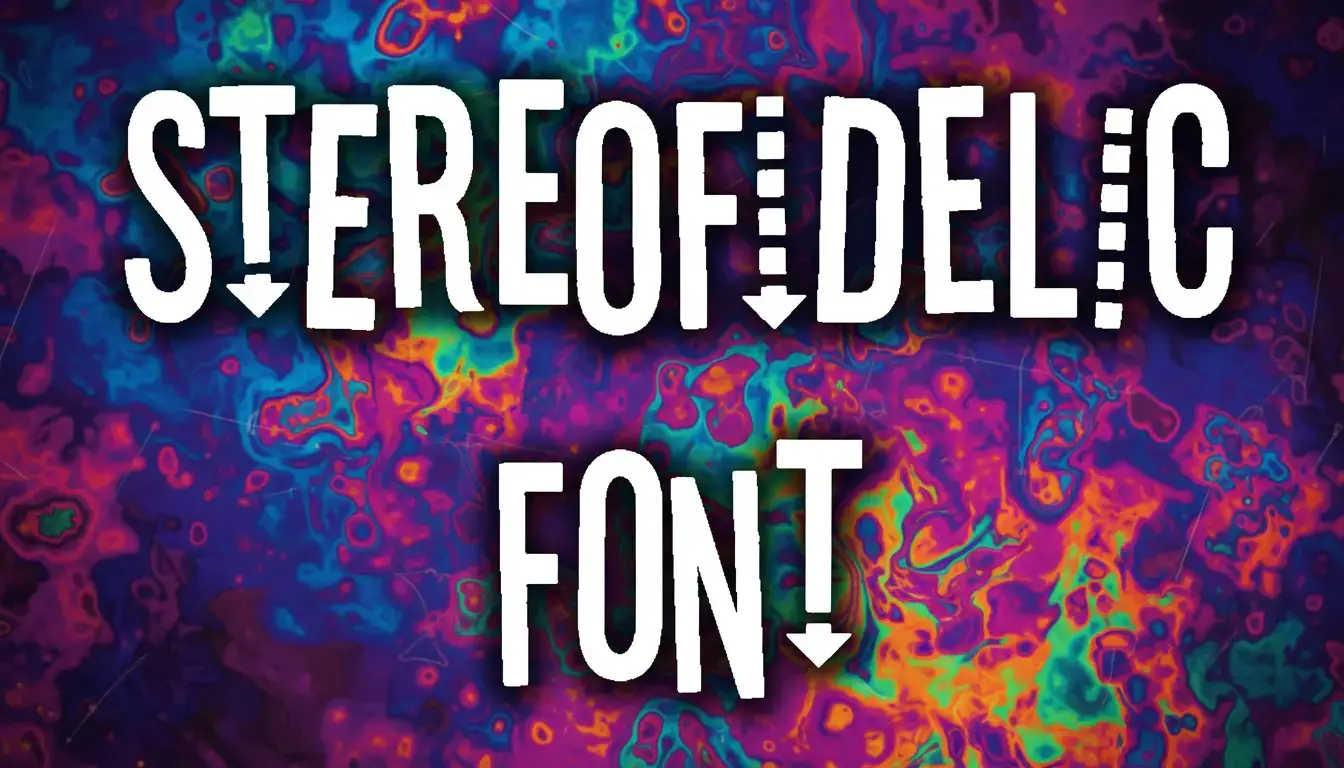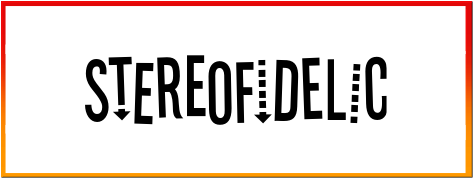
Stereofidelic Font
Stereofidelic is a fancy font made by Ray Larabie. Bold and full of character, it's built to stand out rather than blend in. You can download it for free and test it with your own words in the preview above.
What You Can Type With Stereofidelic
You get every letter from A to Z in both cases and all the numbers from 0 to 9, which means Stereofidelic can handle full sentences, dates and prices. Everyday marks like &, !, ? and @ are there too. Thanks to its accented letters, it also works for Spanish, French, German, Portuguese and Italian, not just English.
Where Stereofidelic Works Best
Think of Stereofidelic for posters, logos and eye-catching headlines. Use it for one standout word or headline and let simpler fonts handle the rest.
Does Stereofidelic support accented letters?
Yes. Stereofidelic includes the accented letters needed for Spanish, French, German, Portuguese and Italian, so it works for more than just English.